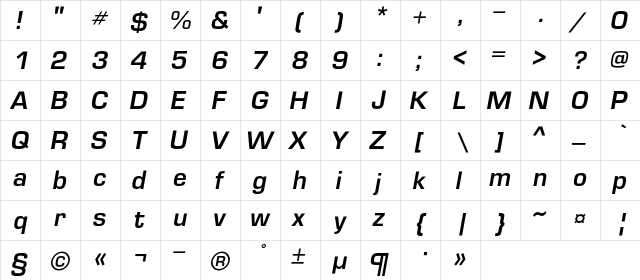
EuropeDemiC Italic Font Preview
EuropeDemiC Italic
Design Context for EuropeDemiC Typeface
EuropeDemiC is a composed and adaptable typeface that performs quietly and consistently across a wide range of design contexts. Its italic angle brings a sense of urgency and motion to the letterforms.
Pro Tip: Try EuropeDemiC for annotation and caption copy alongside an upright companion — the contrast in angle creates a dynamic but ordered typographic system.